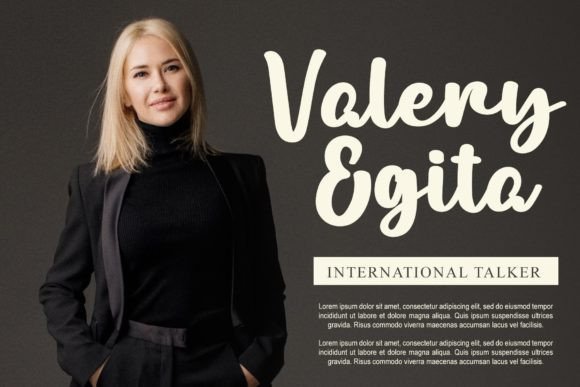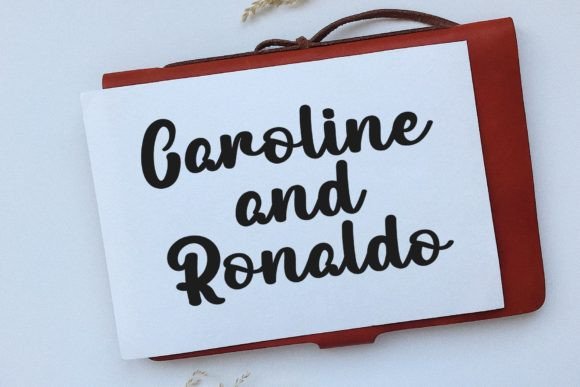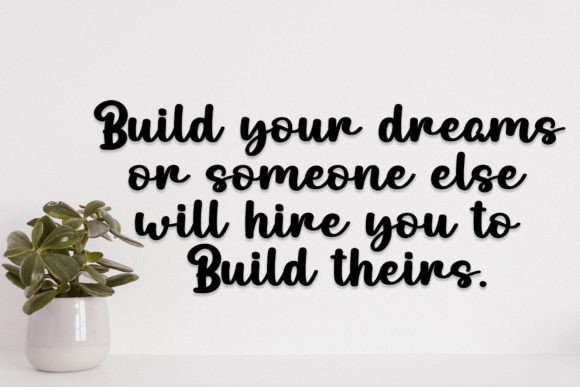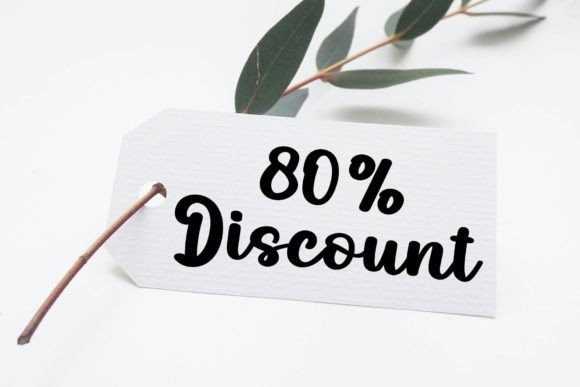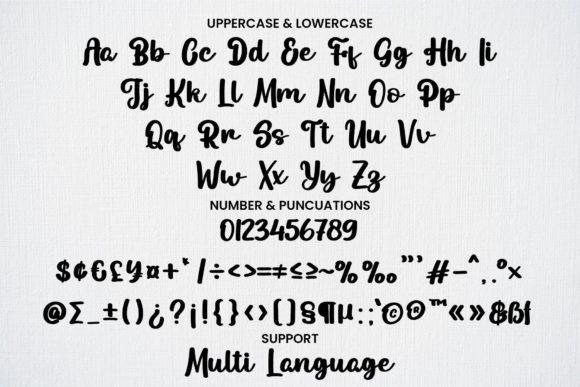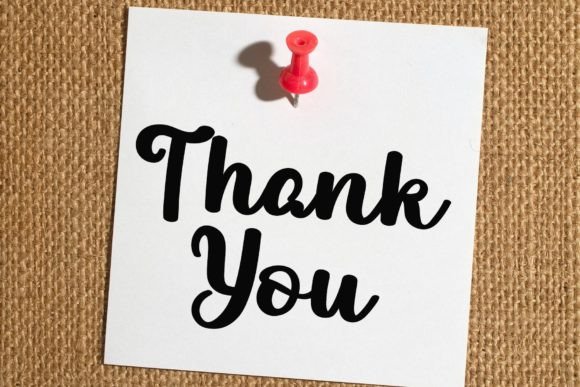
Discover the Elegance of Agile Font: Elevate Your Designs with a Luxurious Handwritten Style
Are you on the hunt for a font that adds a touch of luxury and elegance to your projects? Look no further than Agile Font, a stunning handwritten font that is sure to capture your heart. With its distinct and timeless style, Agile Font is the perfect choice for designers and crafters looking to create spectacular designs that stand out from the crowd.
The Unique Charm of Agile Font
Agile Font boasts an incredibly distinct style that is both elegant and sophisticated. Its luxurious handwritten feel adds a touch of refinement to any project, making it ideal for designers who want to create high-end designs. The font’s unique charm lies in its ability to convey a sense of exclusivity and refinement, perfect for projects that require a high level of sophistication.
What Makes Agile Font So Special?
So, what sets Agile Font apart from other fonts? Here are just a few reasons why this font is a cut above the rest:
- Handwritten with love: Agile Font is a carefully crafted handwritten font, giving it a personal and unique touch that is hard to find in digital fonts.
- Elegant and refined: The font’s elegant and refined style makes it perfect for high-end designs, such as luxury branding, packaging, and advertising.
- Distinct and timeless: Agile Font’s distinct style is both timeless and versatile, making it suitable for a wide range of projects, from modern digital designs to traditional print materials.
- Perfect for creative projects: Whether you’re working on a creative project, such as a logo, brochure, or website, Agile Font is the perfect choice for adding a touch of elegance and sophistication.
How to Use Agile Font in Your Designs
Using Agile Font in your designs is easy! Here are a few tips to get you started:
- Pair it with bold colors: Agile Font looks stunning when paired with bold, bright colors. Try pairing it with a deep blue or green for a luxurious feel.
- Use it for headlines: Agile Font is perfect for headlines and titles, where its elegant and refined style can really shine.
- Experiment with textures: Add some texture to your design by pairing Agile Font with textured backgrounds or overlays.
- Keep it simple: Don’t be afraid to keep things simple and use Agile Font on its own. Its elegant style can speak for itself!
Why Designers and Crafters Love Agile Font
Agile Font has quickly become a favorite among designers and crafters, and for good reason. Here are just a few reasons why:
- Easy to read: Despite its elegant and refined style, Agile Font is surprisingly easy to read, making it perfect for body text and longer blocks of text.
- Highly versatile: Agile Font is incredibly versatile, making it suitable for a wide range of projects, from digital designs to traditional print materials.
- Unique and distinctive: Agile Font’s unique and distinctive style makes it perfect for designers who want to stand out from the crowd and create something truly special.
In conclusion, Agile Font is a luxurious handwritten font that is perfect for designers and crafters looking to add a touch of elegance and sophistication to their projects. With its distinct and timeless style, Agile Font is sure to capture your heart and become a favorite in your font collection. So why wait? Fall in love with Agile Font today and start creating spectacular designs that stand out from the crowd!